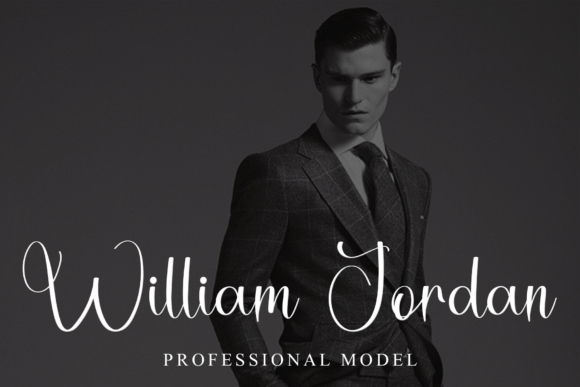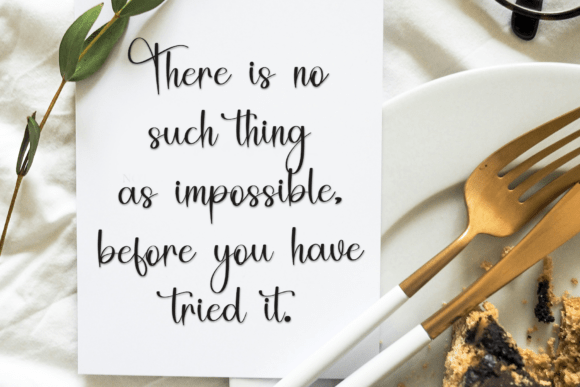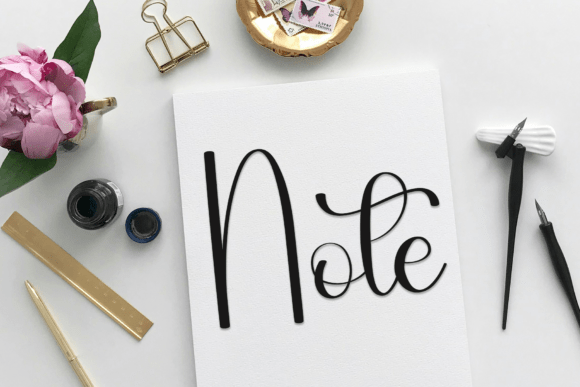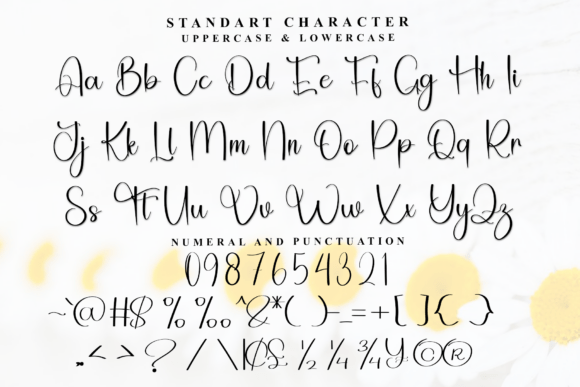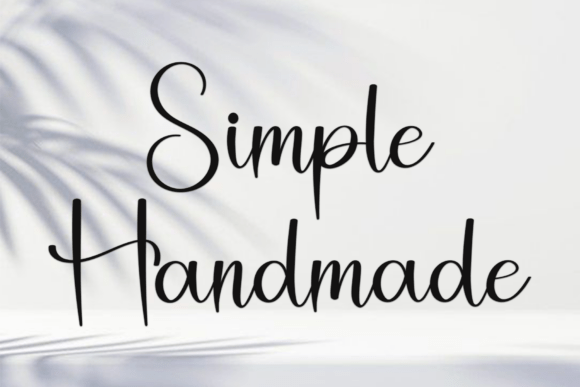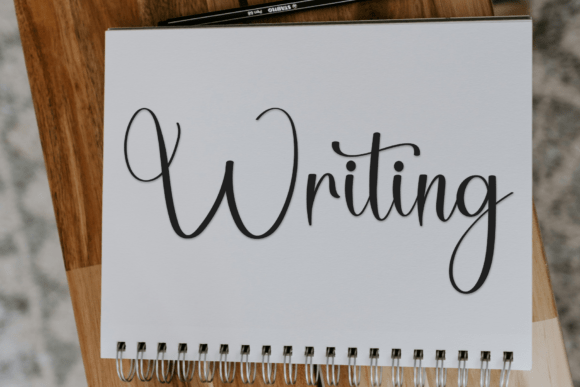
Have you ever sat down with a blank sheet of paper, a blank computer screen, and a spark of inspiration that you just can’t wait to bring to life? For designers and creatives, those moments are what make all the hard work worth it. And when it comes to giving your ideas the perfect visual voice, the right font can make all the difference.
Enter the Angelina Signature Font, a beautiful and unique typeface that adds a touch of elegance and sophistication to any design project. Whether you’re working on a branding campaign, a craft project, or simply want to add some flair to your social media posts, this font is sure to impress. Its versatility and compatibility with a range of applications make it a valuable addition to any designer’s toolkit.
With its distinctive strokes and natural style, the Angelina Signature Font is the perfect choice for designers who want to create truly eye-catching designs that resonate with their audience.
Angelina Signature Font Key Features
- Unique Characteristics: Elegant, cursive script with a touch of sophistication, perfect for creating a personal and professional signature.
Designer Review: Angelina Signature Font
Overall, I think the Angelina Signature Font has a lot to offer. Here are some of its standout features:
- ✨ Elegant, flowing lines that evoke a sense of sophistication and refinement.
- ✨ A wide range of ligatures and swashes that add a touch of personality to each letter.
- ✨ Great for use in branding, invitations, and other high-end applications.
- ⚠️ May not be as readable at very small font sizes.
- ⚠️ Some users may find the font’s ornate features distracting or over-the-top.
Overall, I think the Angelina Signature Font is a great choice for designers who want to add a touch of luxury and sophistication to their work. While it may not be suitable for every project, it’s definitely worth considering for high-end applications where a premium feel is desired.
The Angelina Signature Font is ideal for use in logo design, branding, and typography-based projects.
Use it to add a touch of elegance and sophistication to your designs.
Alternatives to Angelina Signature Font
Great Vibes is a beautiful, handwritten font perfect for creating a warm and welcoming atmosphere. It is ideal for use in branding, invitations, and other materials where a personal touch is desired.
Comparison to Angelina Signature Font: Great Vibes has a more casual, relaxed feel compared to the elegant and sophisticated Angelina Signature Font. While Angelina is great for formal events, Great Vibes is better suited for more informal gatherings.
Carolyna Pro is a modern, elegant script font that is perfect for creating a high-end look. It is ideal for use in luxury branding, invitations, and other materials where a touch of sophistication is desired.